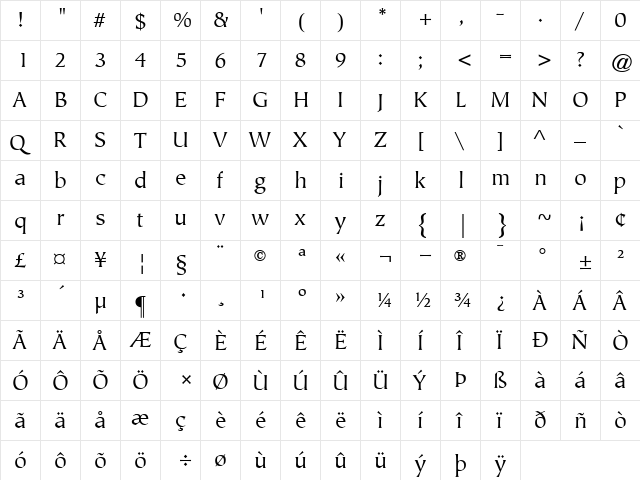
ITCTiepolo-Book Book Font Preview
ITCTiepolo-Book Book
Design Context for ITCTiepolo-Book Typeface
ITCTiepolo-Book offers clean, dependable letterforms without strong stylistic allegiance, making it a practical choice for designers who need flexibility.